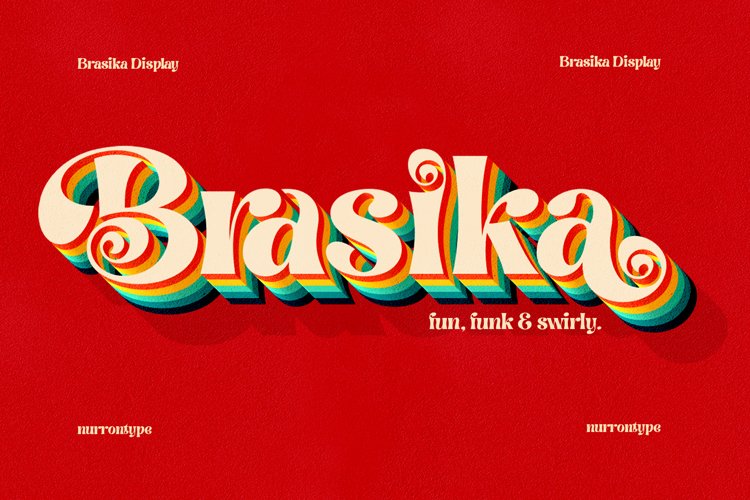
Brasika
Brasika Display
Hello my name is Brasika Display, a fun, funk and swirly font. I was designed with versatility, easy to adapt to your needs. I'm playful enough to make you happy. Just look my styistic and anatomy, it's cool, isn't it ? You can put me in your logo project. Or your magazine title. In your Christmas greetings card, wedding invitation, perhaps use me in your Instagram feeds, Youtube title, and many more, you name it. All my friends called me Polyglat, because I'm speaking and understand many languages. I'm Brasika, buy me now, and I will help you to ignite your next project.